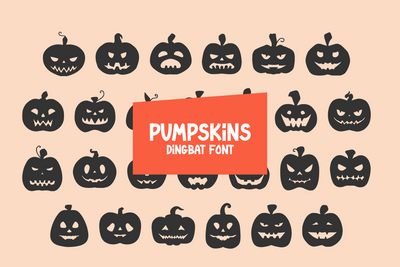
Pumpkins - Dingbat font
Pumpkins is a unique and creative dingbat font. This font is inspired by the Halloween theme. it contains a spooky pumpkin glyph